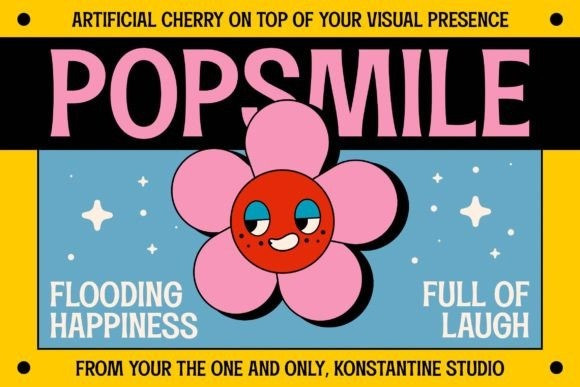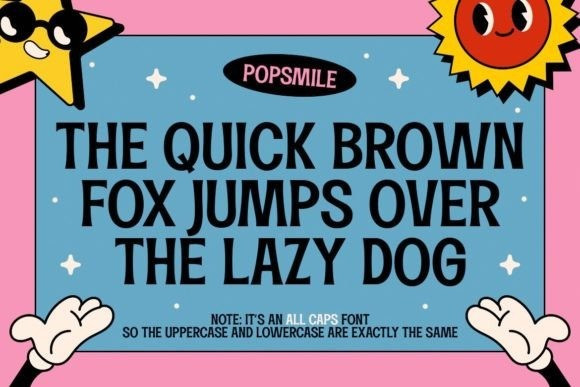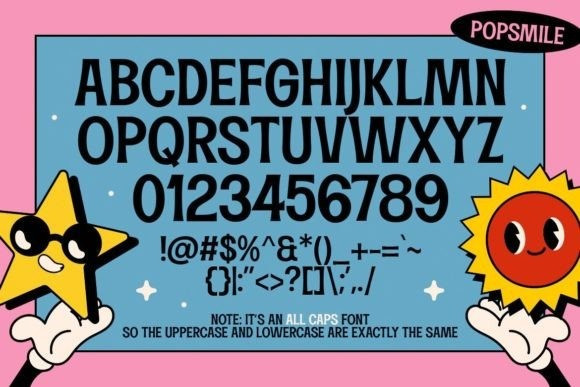
Popsmile Font
Popsmile is inspired by the retro pop culture visual back in the 70s and 80s era. Think about the packaging, posters, signs, advertising, toys, and anything classic and playful stuff back in the day.
A perfect companion for your vintage and retro vibes graphic designs indeed.